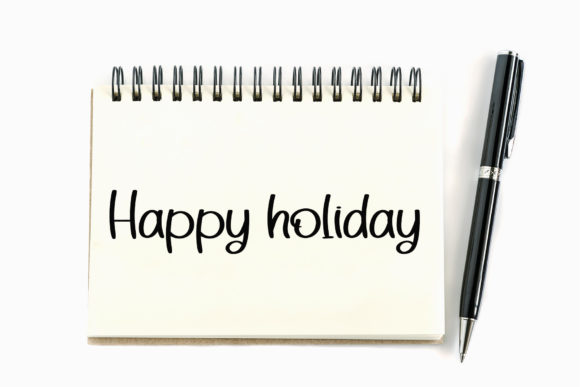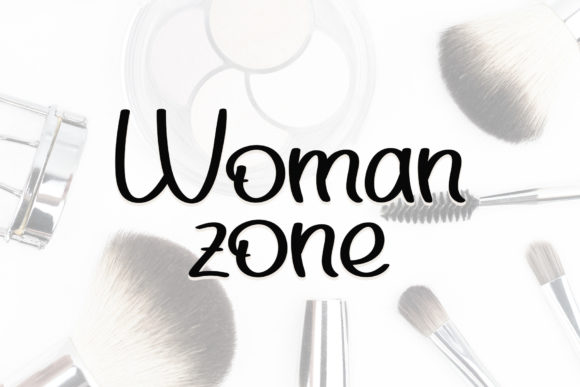
Secret Glamour Font
db-ku.com - Script & Handwritten -- Secret Glamour is a friendly handwritten font, carefully designed to become a true favorite. It maintains its classy calligraphic influences while feeling contemporary and fresh.